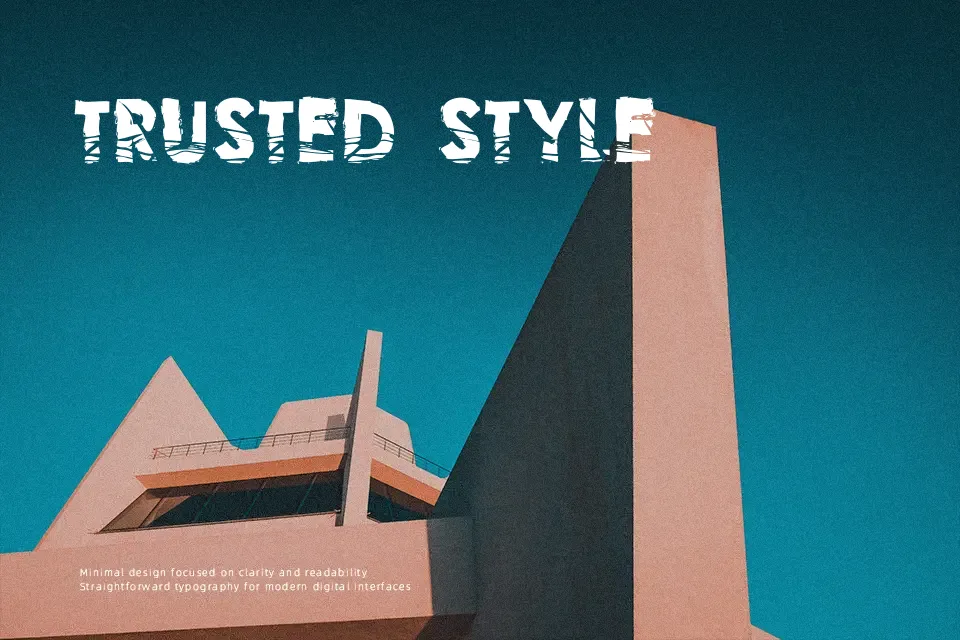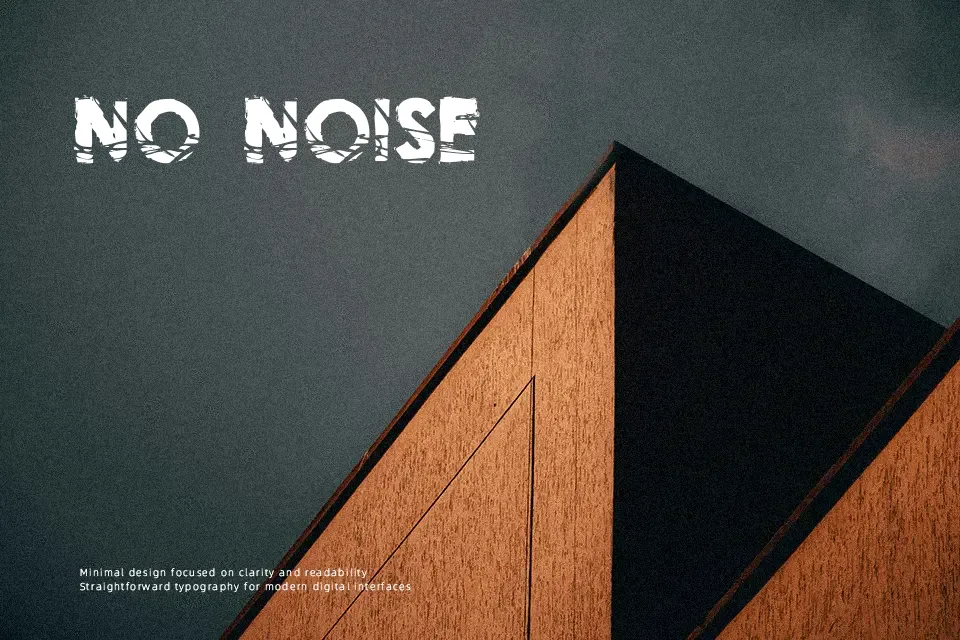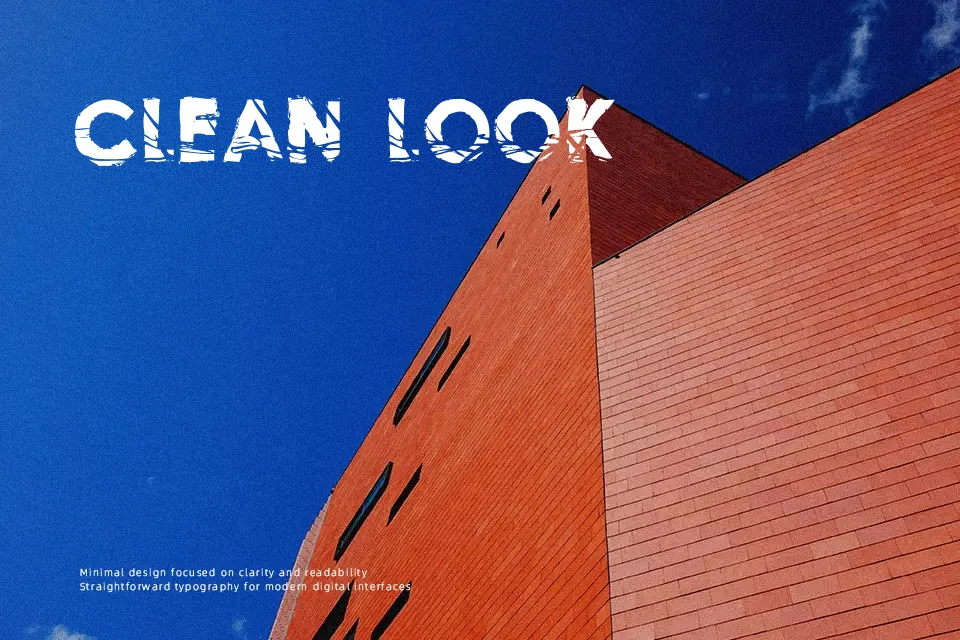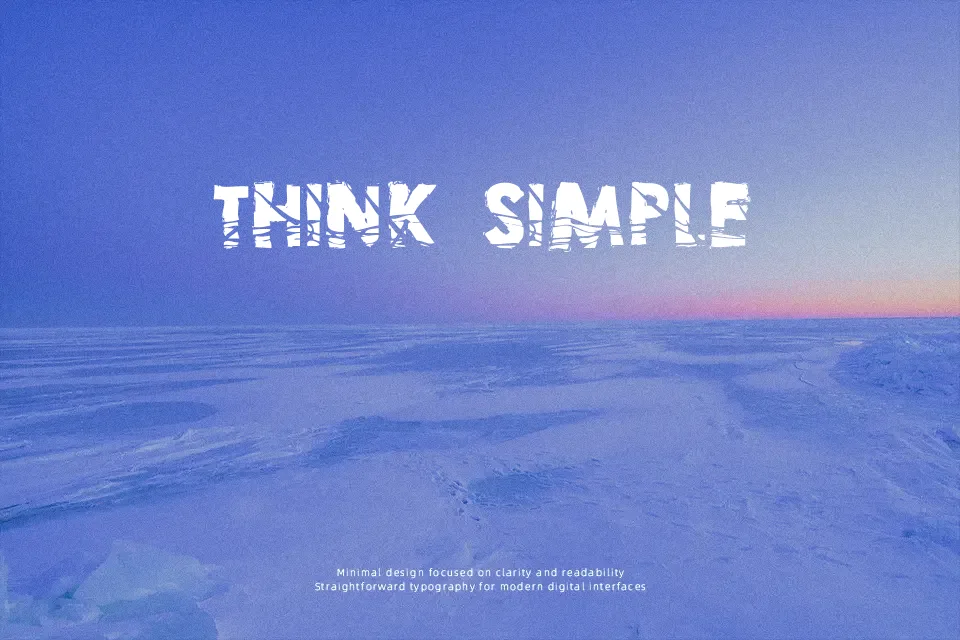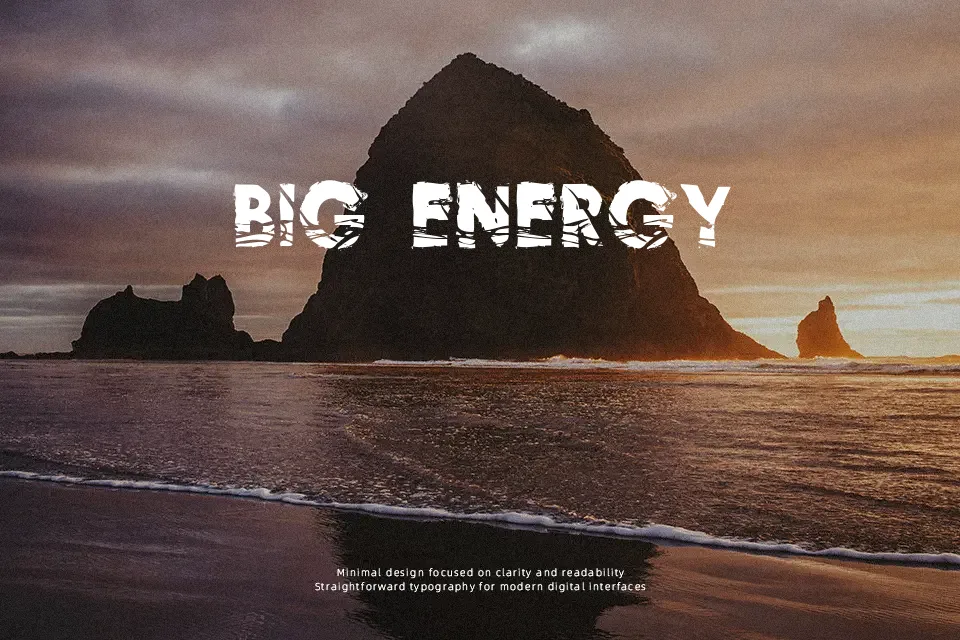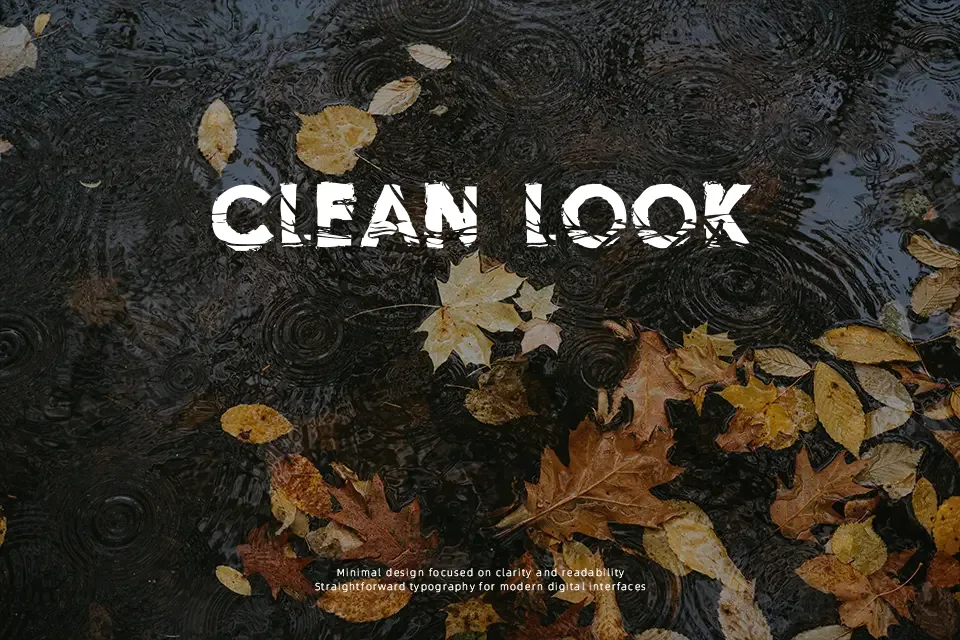
No Hard Evidence Font
No Hard Evidence uses jagged, broken letterforms that give short text a worn and unstable display presence. Its heavy strokes are interrupted by rough cuts and irregular edges, while the generally compact proportions create a dense visual rhythm. Uppercase characters carry the strongest impact, and the numerals and punctuation follow the same damaged treatment. The font reads best in large headlines, where the distressed details remain distinct. It works well for ominous titles and graphic-led compositions, but its fragmented shapes make small text and extended reading noticeably less comfortable.
Best For: horror movie posters,crime-themed book covers,dark music artwork,Halloween event headlines
Not Ideal For: long paragraph text,small interface labels,corporate reports,technical manuals
Perfect for film, halloween, and headline, with a dark and decorative style.